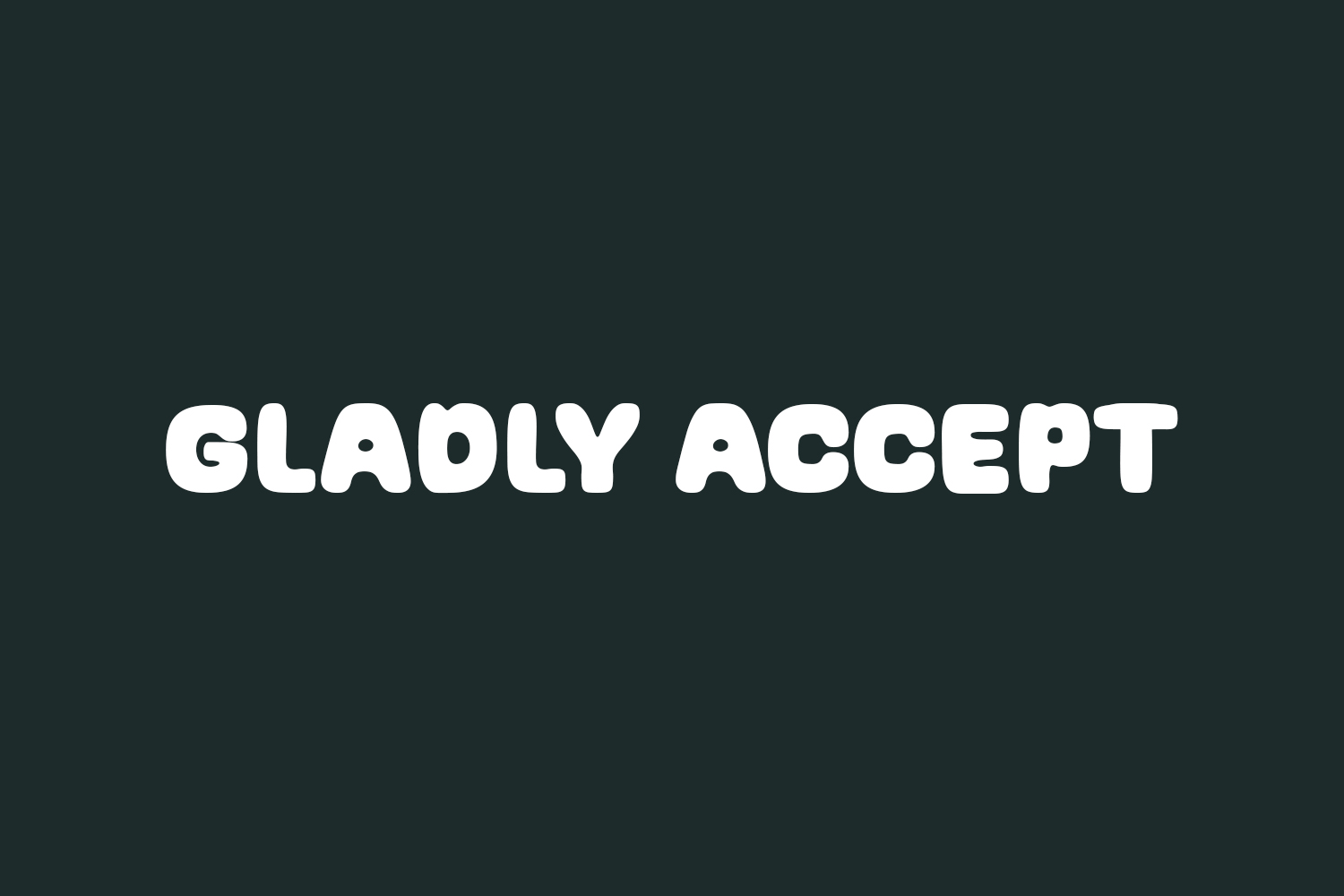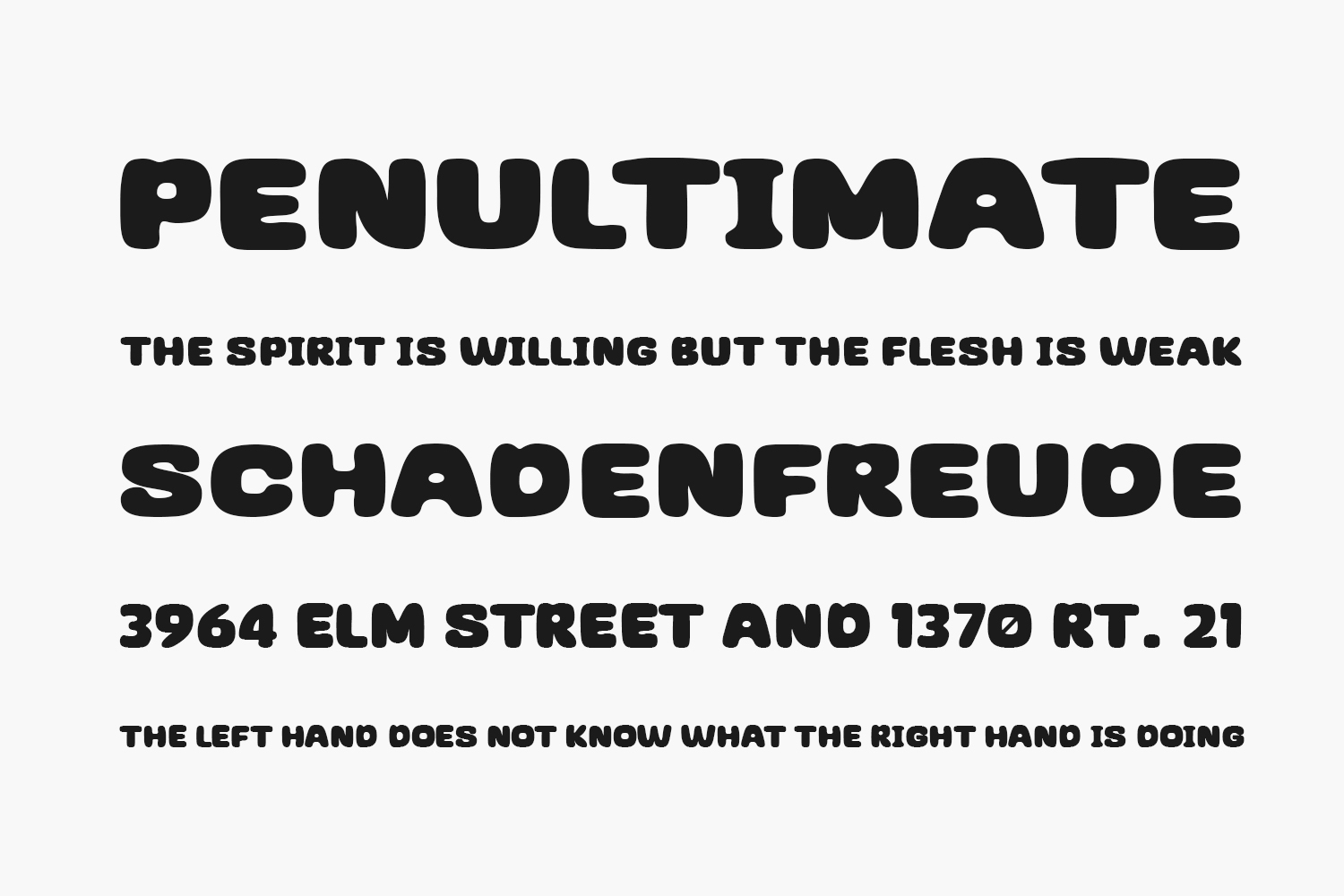
Embrace the cheerfulness of Gladly Accept Free Font, a delightful and bold display font characterized by thick letters. This font radiates playfulness, making it an excellent option for children’s activities or school projects. Incorporate this charming freebie into your designs and witness how it elevates them to new levels of creativity and joy. Gladly Accept Free Font was designed by Niskala Huruf and is free for personal use only. Please purchase the full version for commercial use.